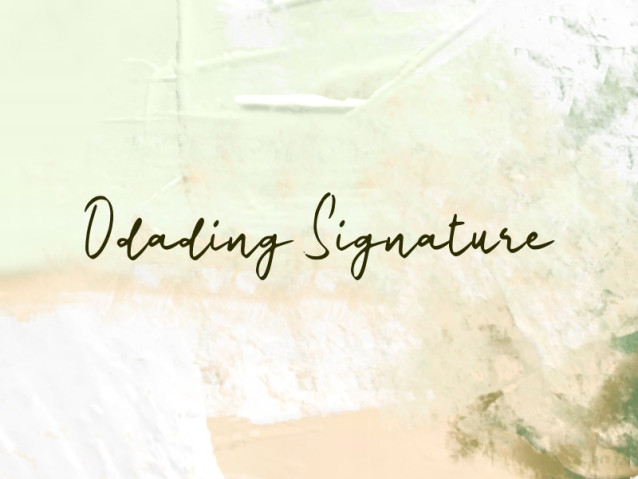
Odading Signature Font
Odading Signature Font is a simple and friendly handwritten font. Its natural and unique style makes it incredibly fitting to a large pool of designs. The only limit is your imagination!